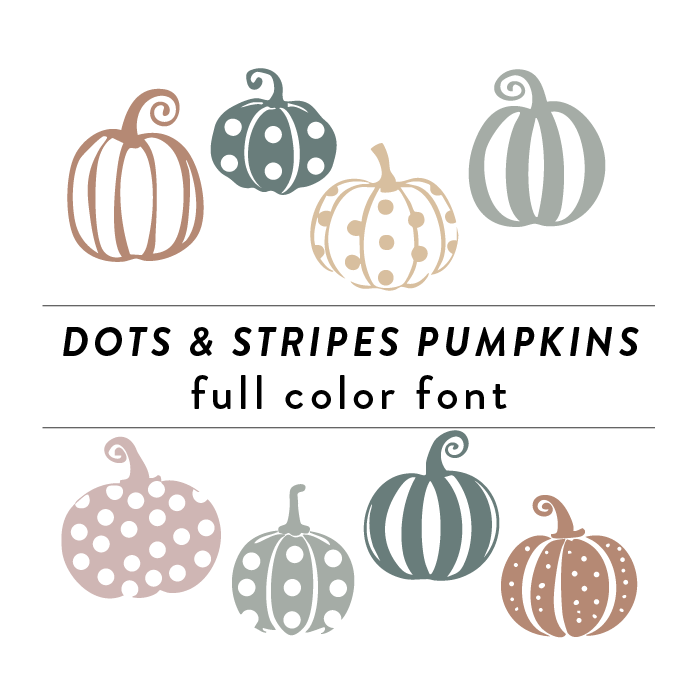
This unique font design, Dots and Stripes Pumpkins Full Color Font, captures the essence of Autumn and Thanksgiving with its playful combination of dots and stripes in muted fall colors. Perfect for adding a festive touch to any decorative project, this font style is whimsical and eye-catching, making it ideal for seasonal decor and other DIY projects. This font is a OTF craft font that will appear in color only when used with the silhouette software.